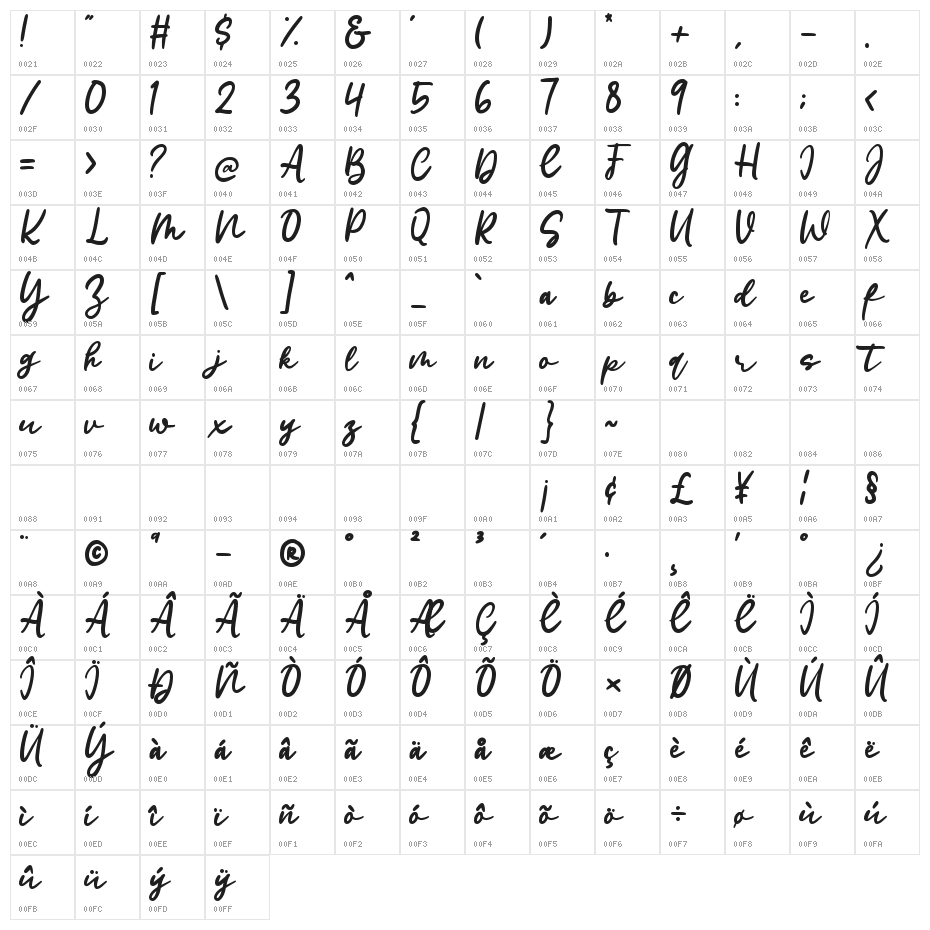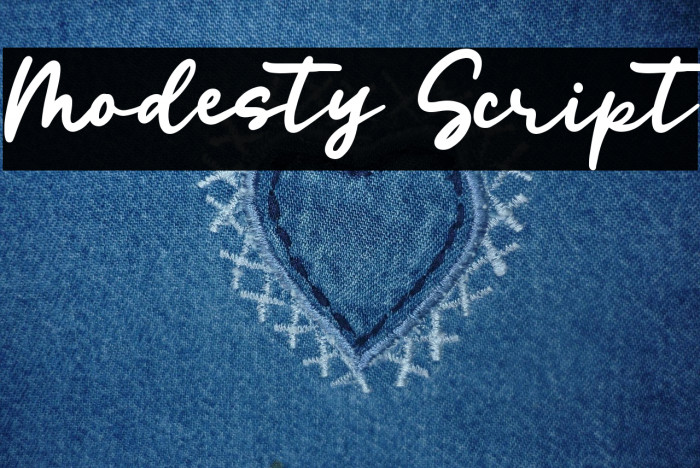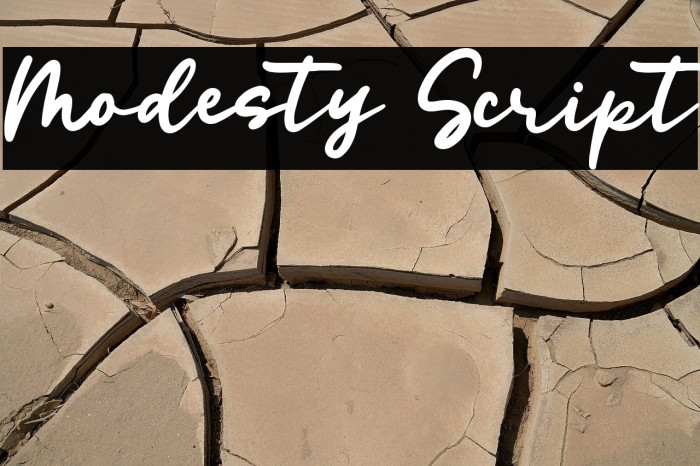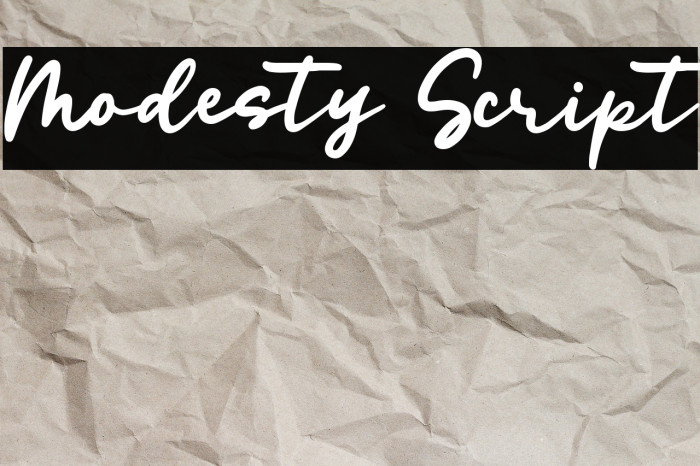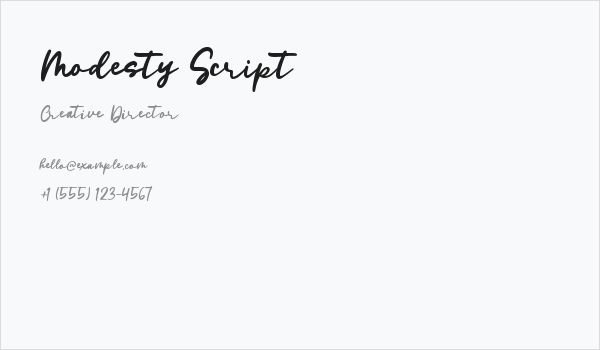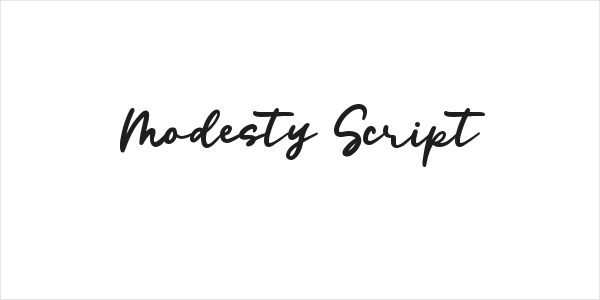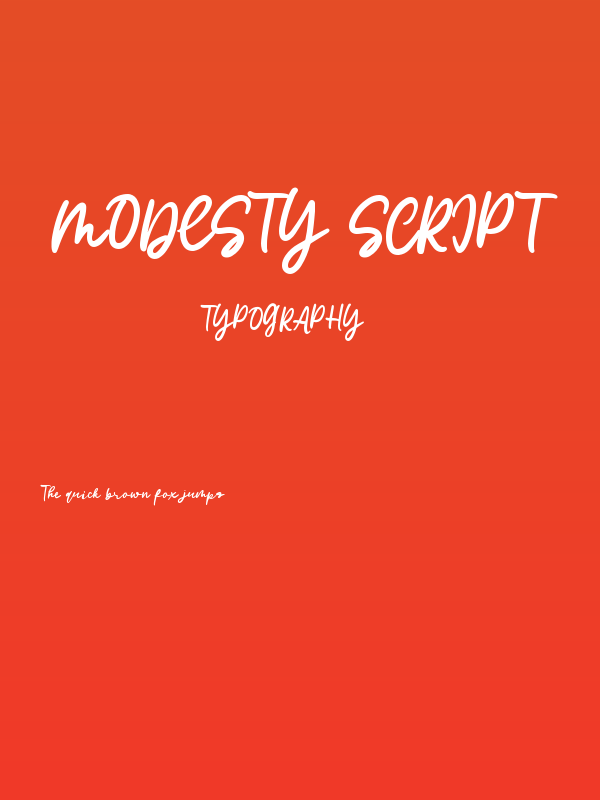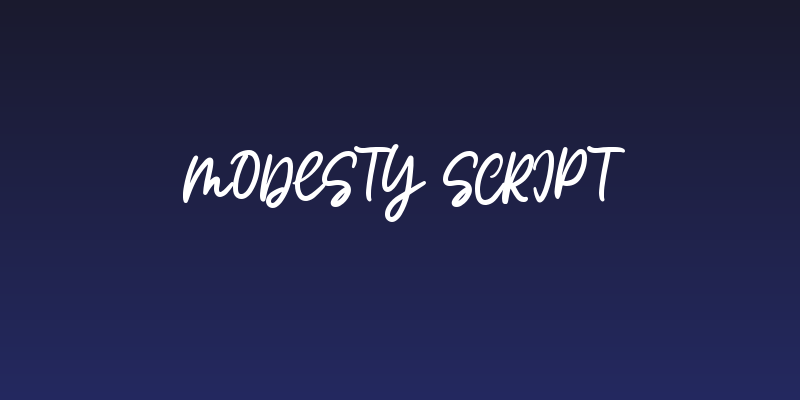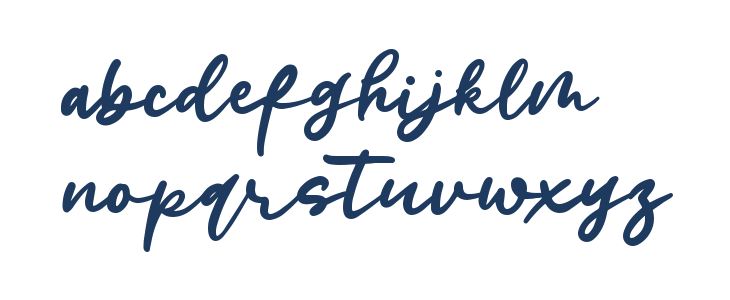
Modesty Script Font
Modesty Script Description
This font features a lively and flowing script style, characterized by its smooth, cursive strokes and a handwritten appearance. The uppercase letters exhibit a consistent slant, adding a sense of movement and elegance. The lowercase letters maintain a cohesive flow, with rounded forms and connected strokes that enhance readability. Numbers and special characters are crafted with the same fluidity, ensuring a harmonious look across all elements. The overall design conveys a sense of warmth and personality, making it suitable for projects that require a personal touch.
| Use Case | Logos, Invitations, Personal branding |
| Proposed Projects | Ideal for wedding invitations, greeting cards, personal branding, and creative projects that require a personal and elegant touch. |